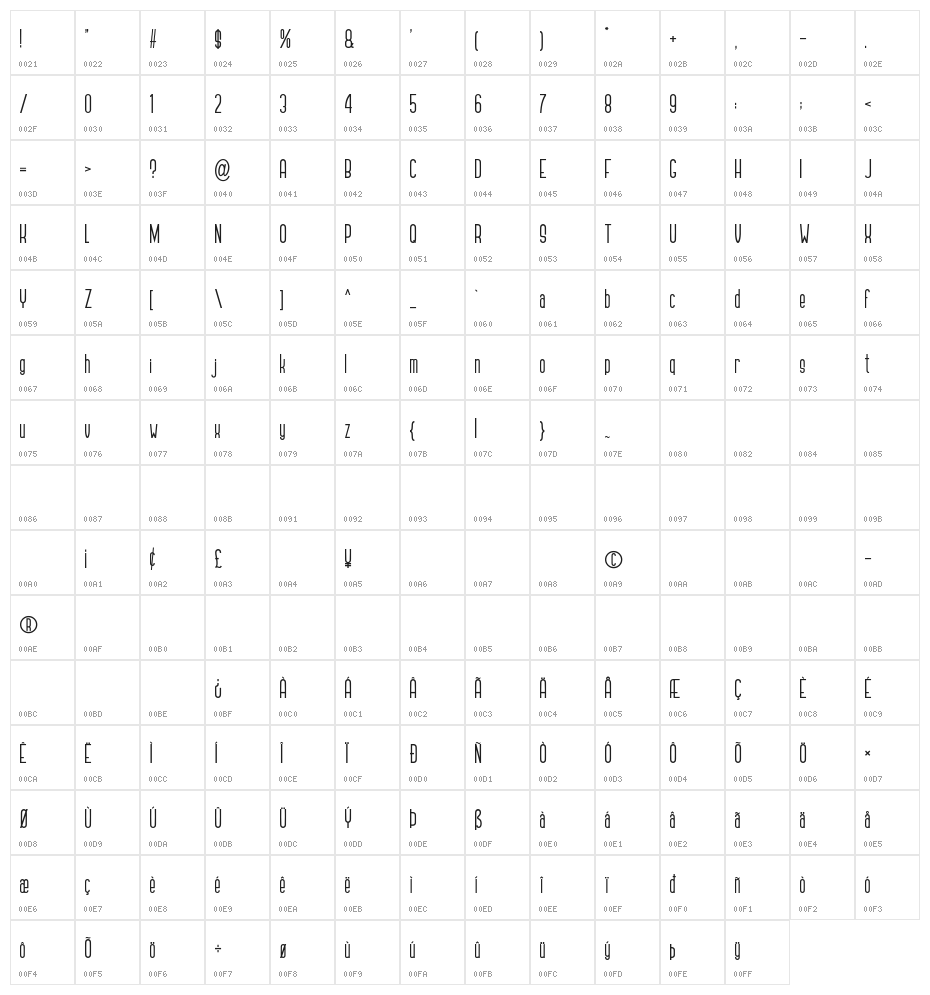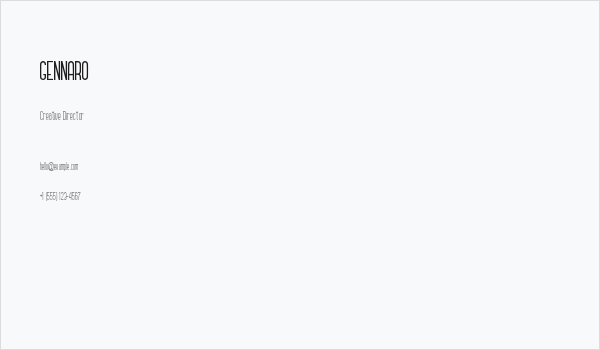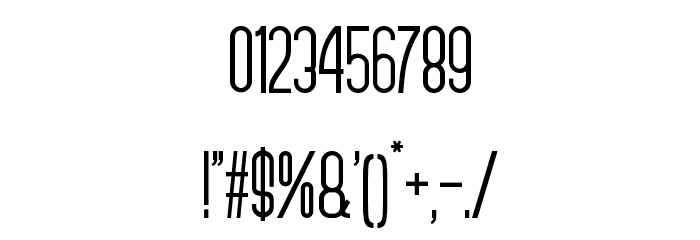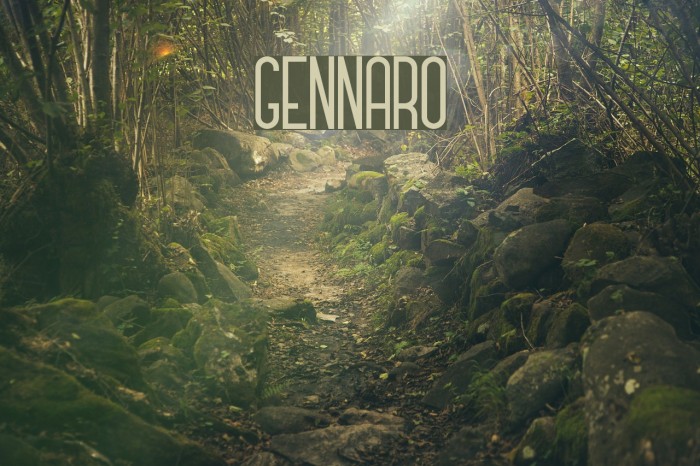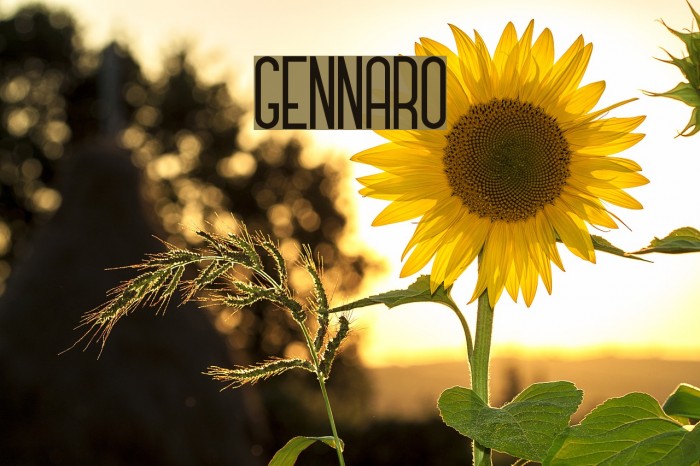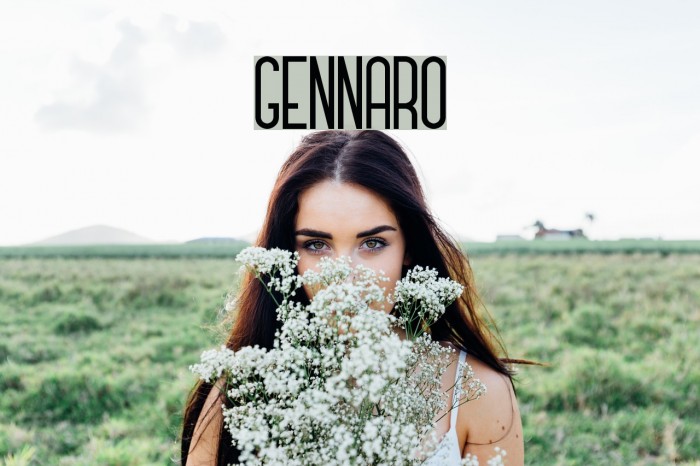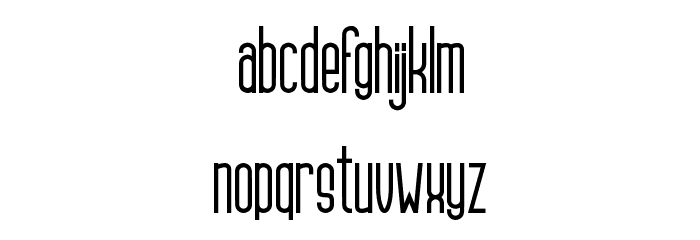
GENNARO Font
GENNARO Description
This font features a tall and narrow design with a modern and sleek appearance. The characters are elongated with a consistent stroke width, giving it a clean and sophisticated look. The uppercase letters are particularly striking, with a uniform height and minimalistic style. The lowercase letters maintain the same narrow structure, providing a cohesive appearance across the font. The numerals are distinct and easy to read, matching the overall aesthetic. Special characters are included, maintaining the same design principles, ensuring versatility for various uses.
| Proposed Projects | Ideal for modern branding, posters, and editorial design where a sleek and sophisticated look is desired. |